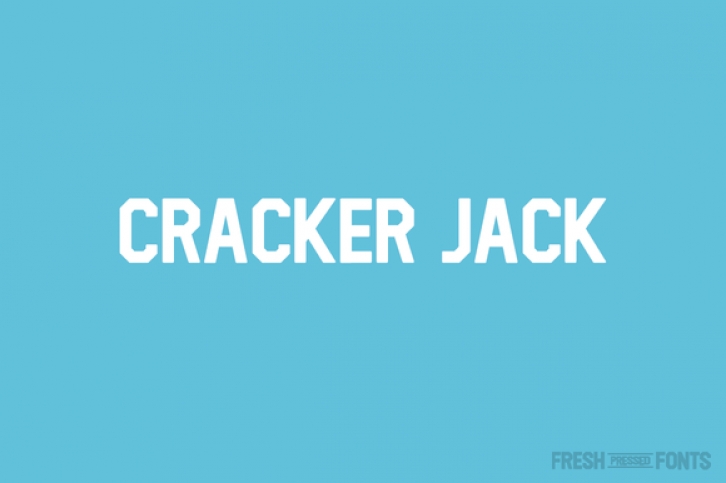
Cracker Jack is a sports inspired typeface with strong geometric angles. It comes in both upper and lower case, along with a generous glyph library containing over 100 characters.
Cracker Jack works well as a display typeface that packs a punch but also holds its own when shrunk down smaller.